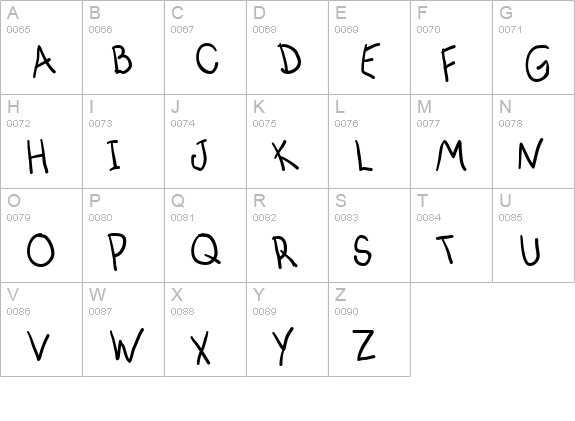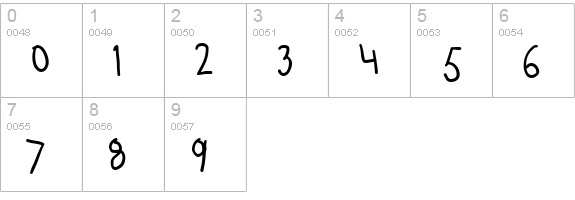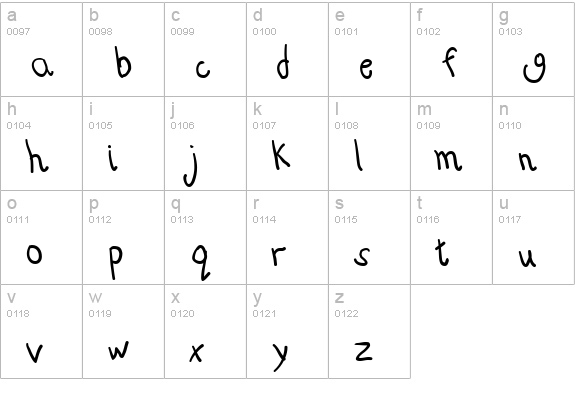
AbcKids Font Details
Introducing AbcKids font, a delightful and charming typeface perfect for all your child-friendly design projects. With its playful and whimsical style, AbcKids is sure to bring a touch of fun to any creative endeavor. This font is ideal for children's books, educational materials, party invitations, and more. The best part? AbcKids is completely free to download at FontsMarket.com. Don't miss out on adding this adorable font to your collection today!